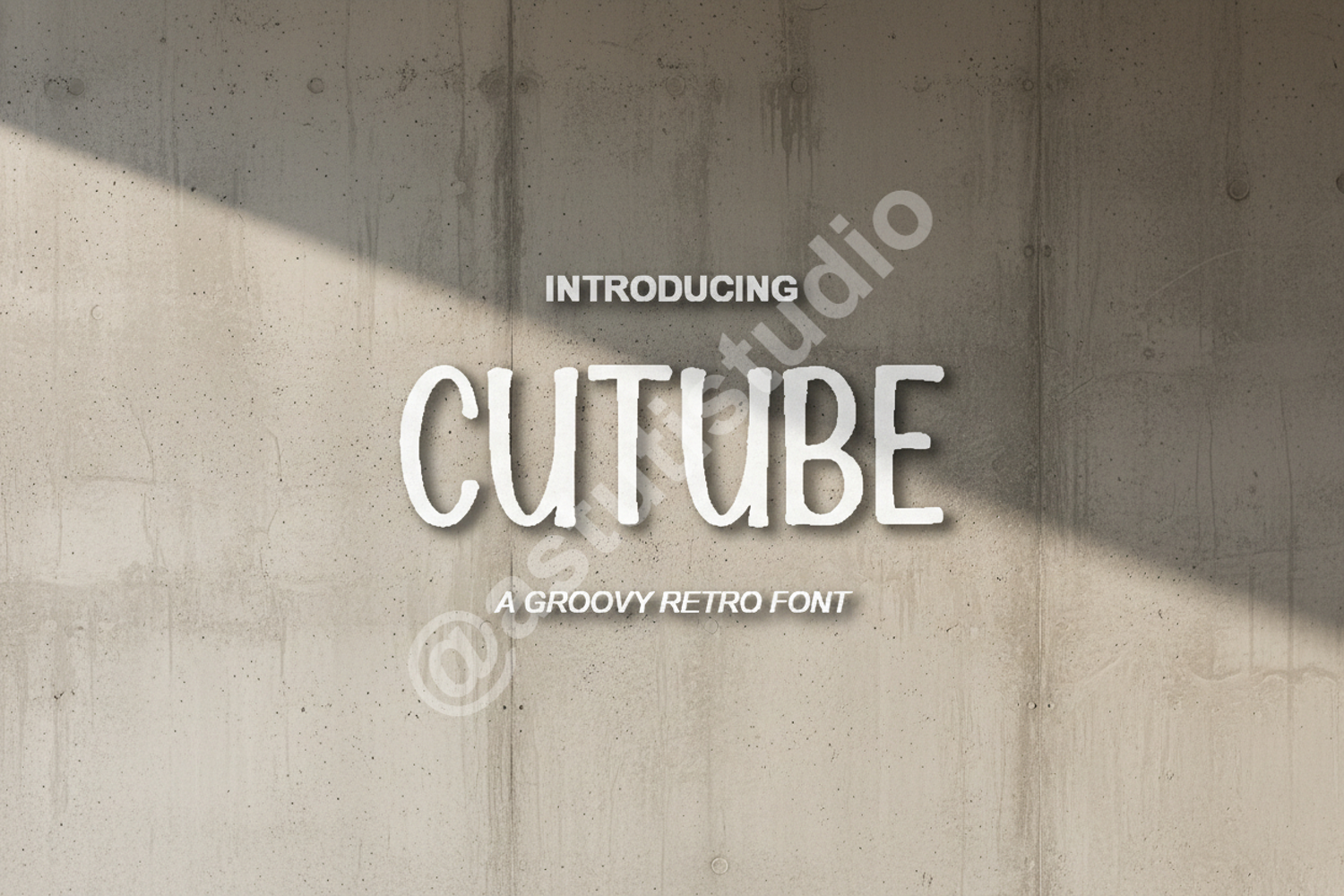
Cutube - Sleek Modern Geometric Display Font
Cutube
Elevate your design projects with Cutube, a premium geometric display font meticulously crafted for maximum impact. Cutube combines sleek, modern aesthetics with exceptional legibility, making it a versatile choice for contemporary creative work. Whether you are building a brand from scratch or refreshing a digital presence, this font delivers a professional and polished finish every time.
- Branding and Identity Design: Create memorable logos and brand marks.
- Social Media Content: Stand out on digital platforms with bold headings.
- Editorial and Publishing: Perfect for magazine headers and stylish layouts.
- Website Design: Enhance user experience with clean, readable web headers.
- Packaging and Merchandise: Add a high-end feel to product labels and apparel.